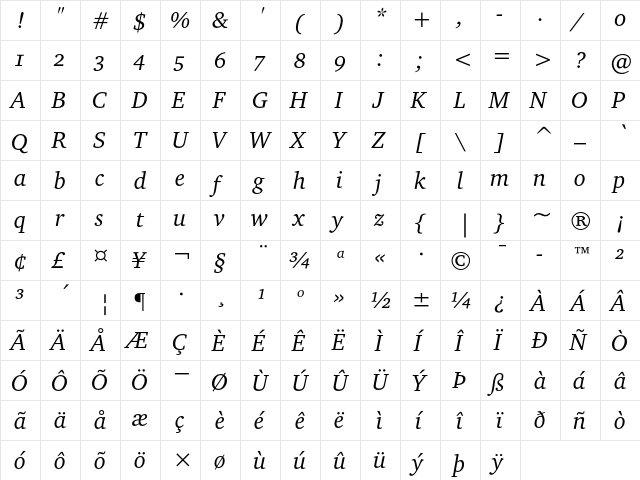
Charter ITC Regular Italic OS
Design Context for Charter ITC Typeface
Charter ITC is a composed and adaptable typeface that performs quietly and consistently across a wide range of design contexts. Its italic angle brings a sense of urgency and motion to the letterforms.
Pro Tip: Use Charter ITC for emphasis, pull quotes, and subheadings where its slanted energy can add rhythm to the layout.